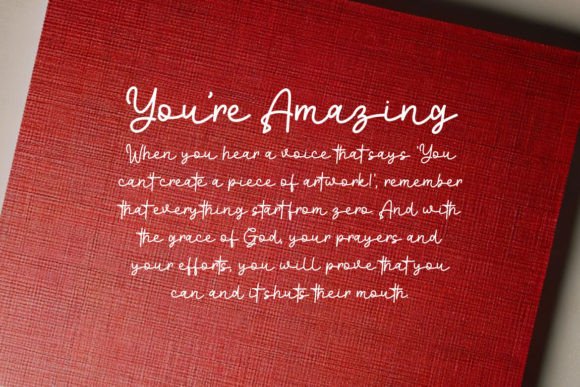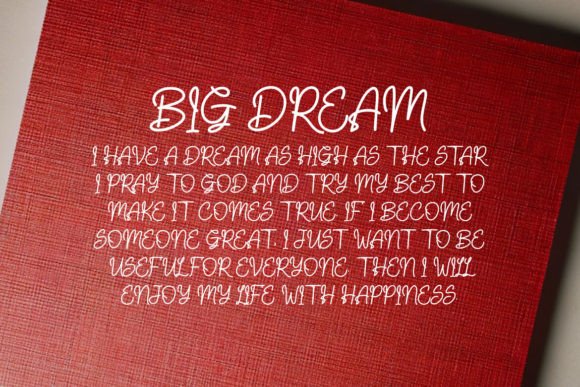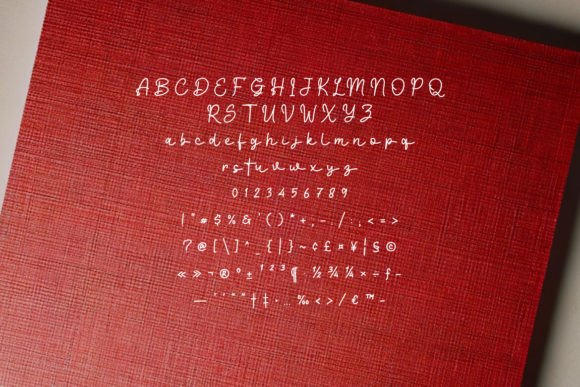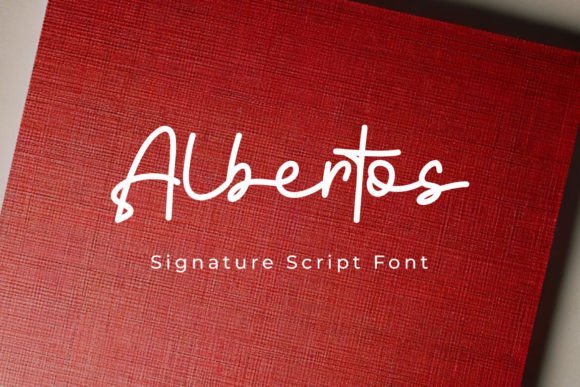
Introducing Albertos – The Elegant Signature Script Font
Have you ever been in the middle of a design project, and suddenly, you’re stuck on finding the perfect font? I recall a recent experience where a client requested a logo that exuded elegance and sophistication. After hours of searching, I stumbled upon **Albertos – Signature Script Font**, and it was love at first sight! With its fluid strokes and exquisite details, this beautifully crafted signature script font has become my go-to for adding a touch of class to any project.
What Makes Albertos Special?
**Albertos** is designed to bring a level of refinement and poise to your designs, making it perfect for creating stunning logos, branding materials, wedding invitations, social media graphics, and more. Whether you’re a designer looking to elevate your branding projects or a creative individual aiming to add a personal touch to your social media posts, **Albertos** is the perfect choice.
An Honest Review of Albertos
- ✨ Elegant and Sophisticated: The fluid strokes and exquisite details give **Albertos** a unique and luxurious feel.
- ✅ Versatile: Suitable for a wide range of projects, from logos and branding to invitations and social media graphics.
- 💡 Easy to Read: Despite its script nature, **Albertos** remains clear and legible, even at smaller sizes.
- 🤔 Occasional Kerning Issues: As with many script fonts, you might encounter kerning issues between certain letter combinations. This can be easily adjusted in most design software.
- ⚠️ Limited Use in Body Text: Due to its decorative nature, **Albertos** is best used sparingly. It’s not ideal for long body text.
The inspiration for **Albertos** comes from a blend of traditional calligraphy and modern design trends. The creator aimed to craft a font that feels both timeless and contemporary, making it versatile for various design applications. The name **Albertos** reflects a nod to classic elegance and sophistication.
| Font Name | Albertos Font |
| Author | Mightyfire |
Q: Is Albertos suitable for body text?
A: While **Albertos** is beautiful, it’s best used sparingly due to its decorative nature. For long body text, consider a more readable font.
Q: Does Albertos support OpenType features?
A: Yes, **Albertos** includes OpenType features like ligatures and stylistic alternates, which can be accessed in compatible design software.